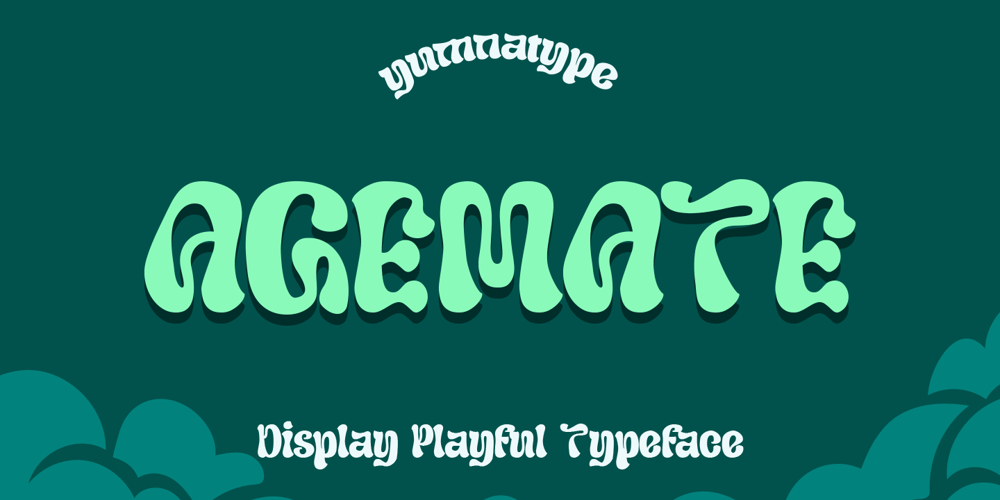
Agemate Font Family was designed by Donis Miftahudin and published by Yumna Type. Agemate contains 1 styles and family package options. Agemate is a quirky serif display font that brings a playful touch to your designs. With its unique style and lively appearance, this font is perfect for projects that need a dash of creativity and fun. Each letter in Agemate is crafted with playful shapes and quirky details, giving it a sense of personality and whimsy. The uneven outline adds to its handcrafted feel, adding a touch of spontaneity and creativity to the overall design. What sets Agemate apart is its ability to inject energy and vitality into any design project. In addition, enjoy the features here.Features: Multilingual Supports PUA Encoded Numerals and Punctuations Agemate fits in headlines, logos, posters, flyers, branding materials, print media, editorial layouts, and many more designs. Find out more ways to use this font by taking a look at the font preview.Thanks for purchasing our fonts. Hopefully, you have a great time using our font. Feel free to contact us anytime for further information or when you have trouble with the font. Thanks a lot and happy designing.